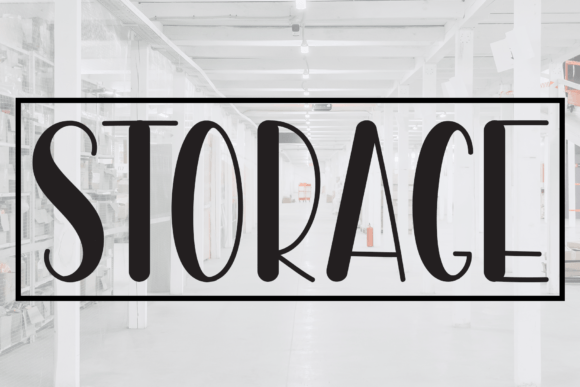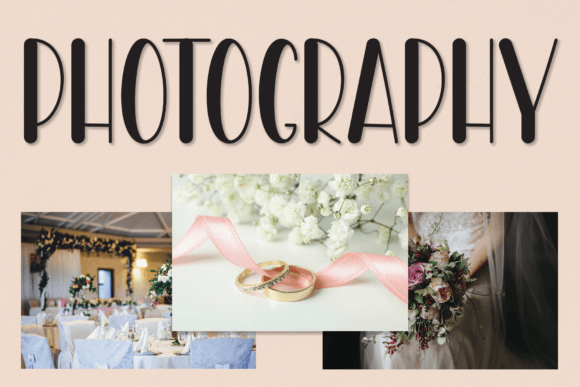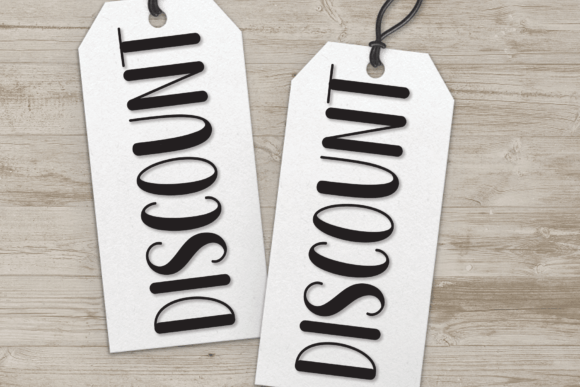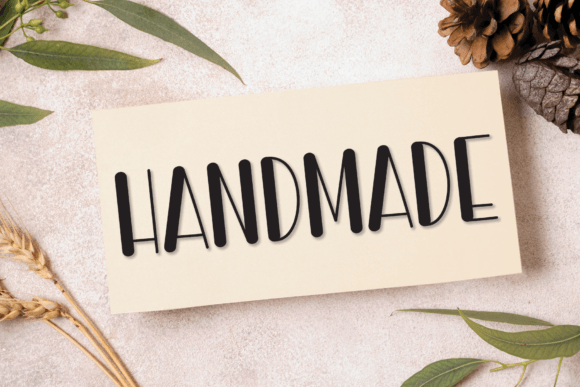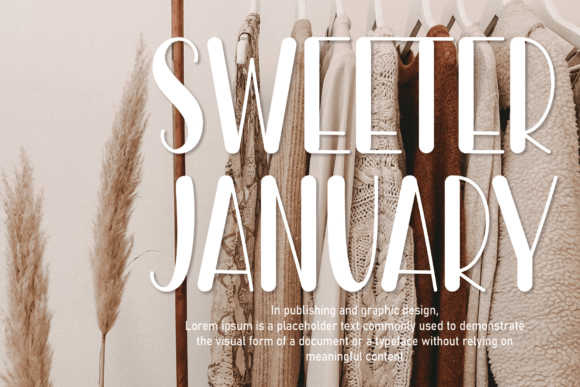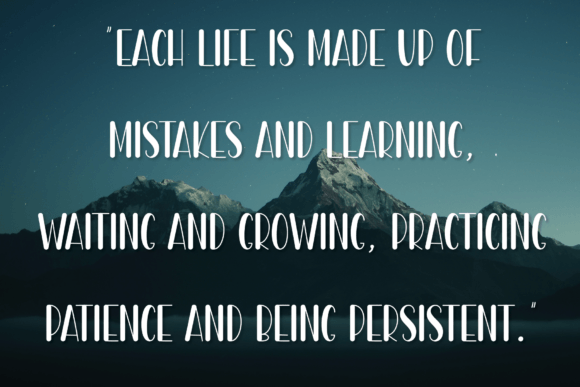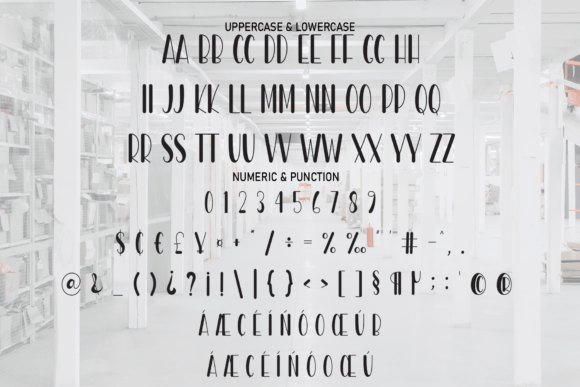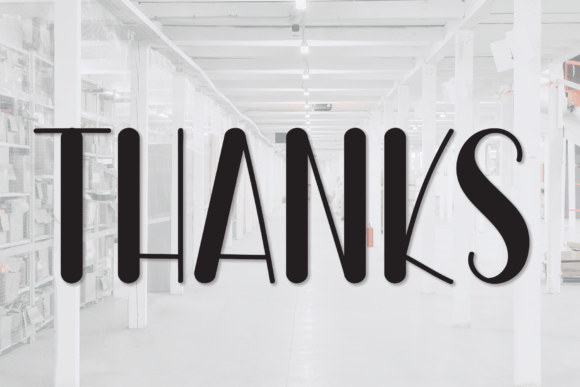
Storage Font
About Storage Font
Storage Font is a cool and casual handwritten font. It has a clean, modern look. You can use it for many projects. This font brings a natural feel to your designs. It is great for crafts, branding, and social media.
Perfect for Crafts
Storage Font is an ideal choice for craft lovers. It works well with Cricut and Silhouette machines. You can cut it easily on vinyl and paper. Use it to make mugs, tote bags, wooden signs, or wall art. The smooth lines give your projects a handmade touch.
Great for Greeting Cards
This font looks warm and friendly on cards. It is perfect for thank you notes, birthday cards, and wedding invitations. The casual style makes every message feel personal. The letters are easy to read and look neat on any background.
Ideal for Logos and Branding
Storage Font is perfect for small businesses. Use it in logos, labels, and packaging. It gives your brand a relaxed and approachable feel. The clean look helps your products stand out. Whether you sell handmade goods or digital products, this font adds charm to your brand.
Perfect for Social Media
Use Storage Font on Instagram posts, Pinterest graphics, or Facebook ads. It helps create a friendly and modern look. Your audience will love the fresh style. The font is easy to read on screens. It keeps your message clear and engaging.
Versatile and Easy to Pair
You can pair Storage Font with other fonts. It looks great with bold sans-serif or classic serif styles. This makes it easy to create unique designs. Mix and match to find the perfect look for your project.
Supports Many Languages
Storage Font includes uppercase and lowercase letters, numbers, and punctuation. It supports multiple languages, so you can use it globally. This is great for businesses with customers around the world.
Why Choose Storage Font?
Storage Font is more than just a font. It is a creative tool. Each letter has a natural flow. Your designs will look polished and professional. Whether you are designing for fun or work, this font will help you make something special.
Simple and Stylish
This font is simple but full of personality. The clean lines and casual vibe make it perfect for many uses. From crafts to branding, Storage Font does it all.
Bring Your Ideas to Life